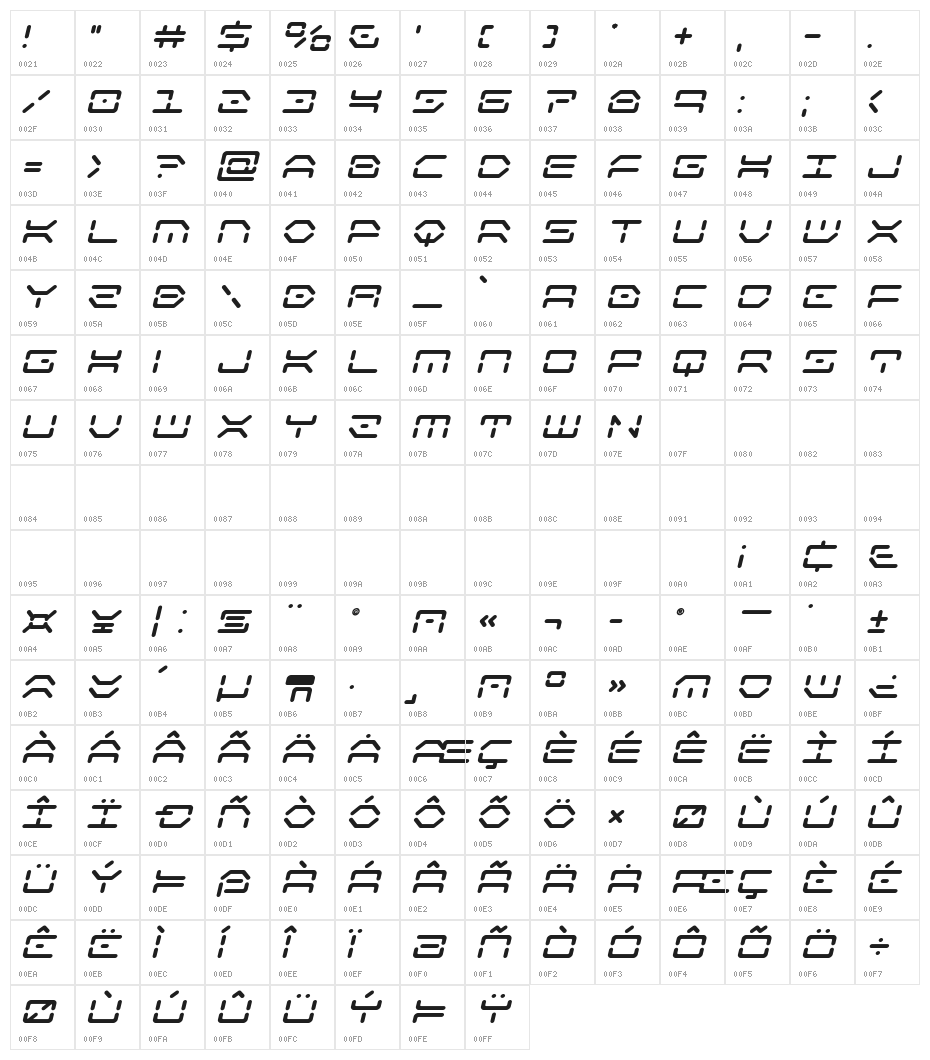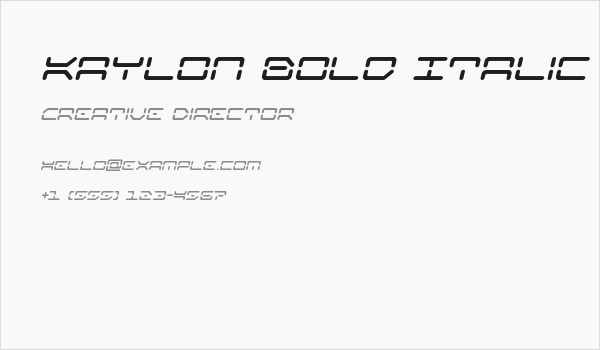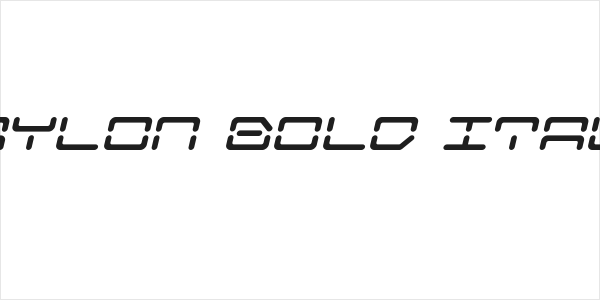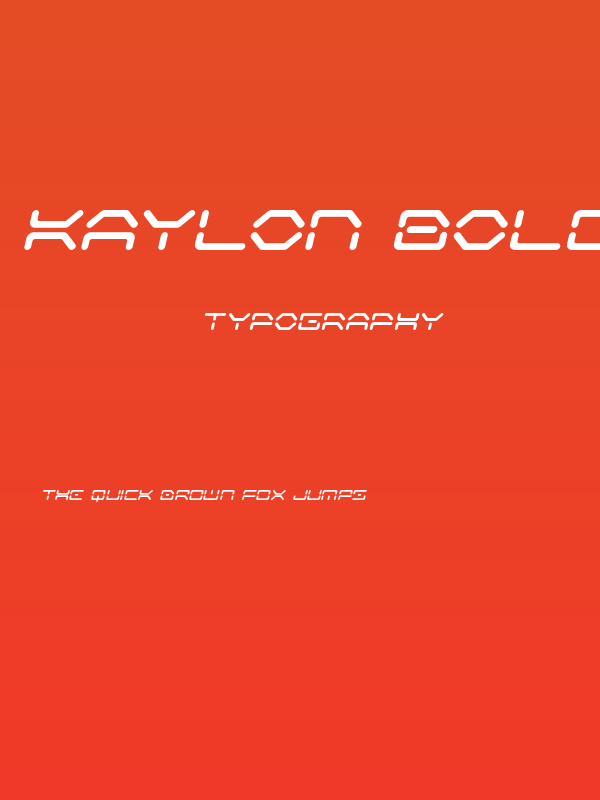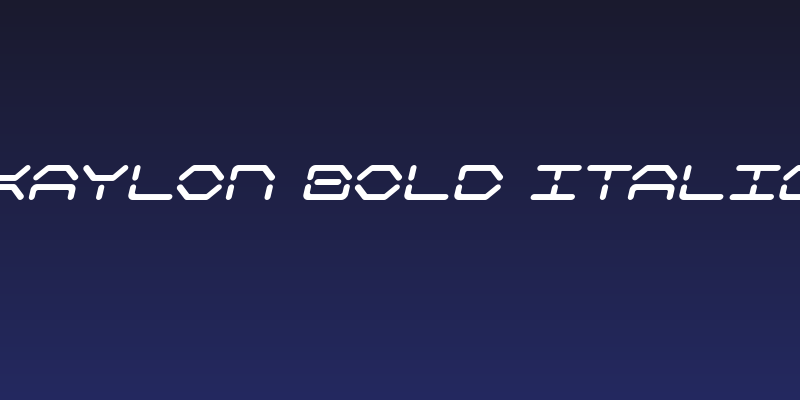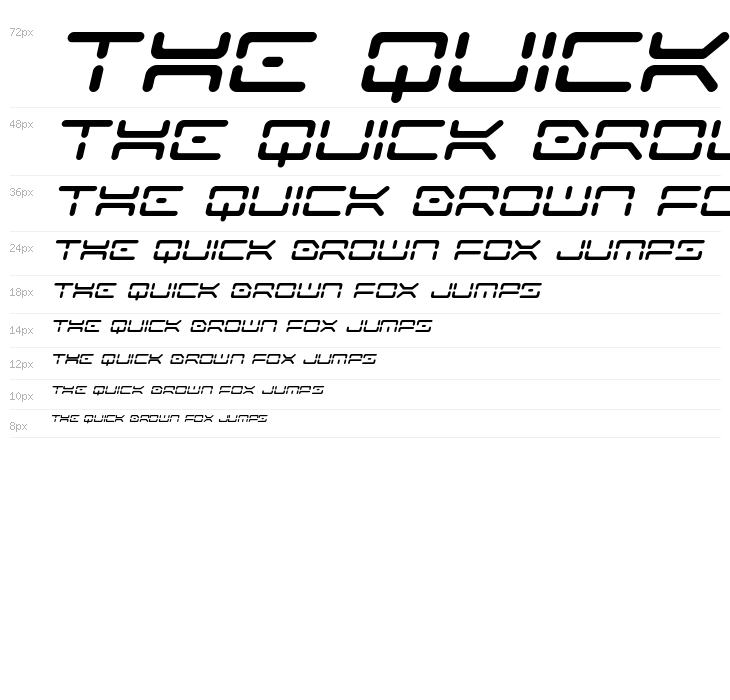
Kaylon Bold Italic Font
Kaylon Bold Italic Description
This font features a futuristic and geometric design with a bold and italicized style. The characters are constructed with a series of connected lines and rounded corners, giving it a sleek and modern appearance. The uppercase and lowercase letters maintain a consistent height, while the numbers and special characters follow the same design principles. The font's unique style makes it stand out, with a strong emphasis on horizontal and vertical lines, creating a sense of movement and dynamism. The overall look is both technical and stylish, suitable for projects that require a contemporary and cutting-edge aesthetic.
| Proposed Projects | Ideal for technology branding, sci-fi themed projects, video game titles, and modern advertising. |